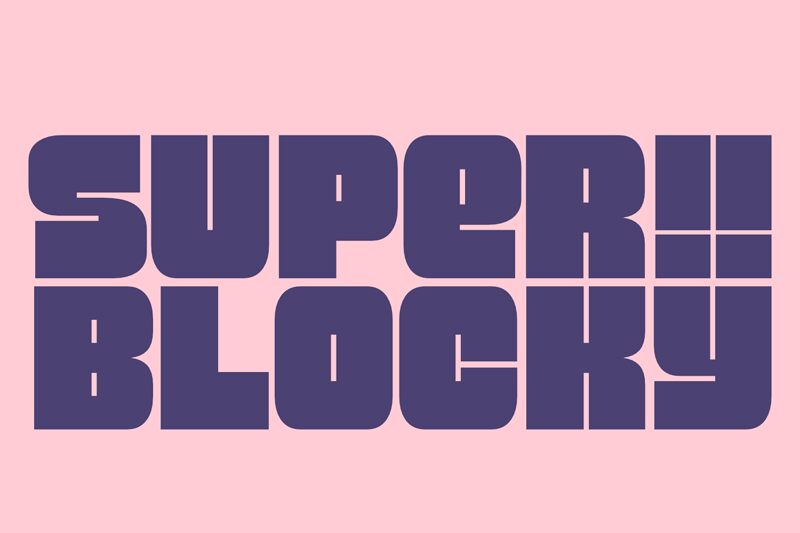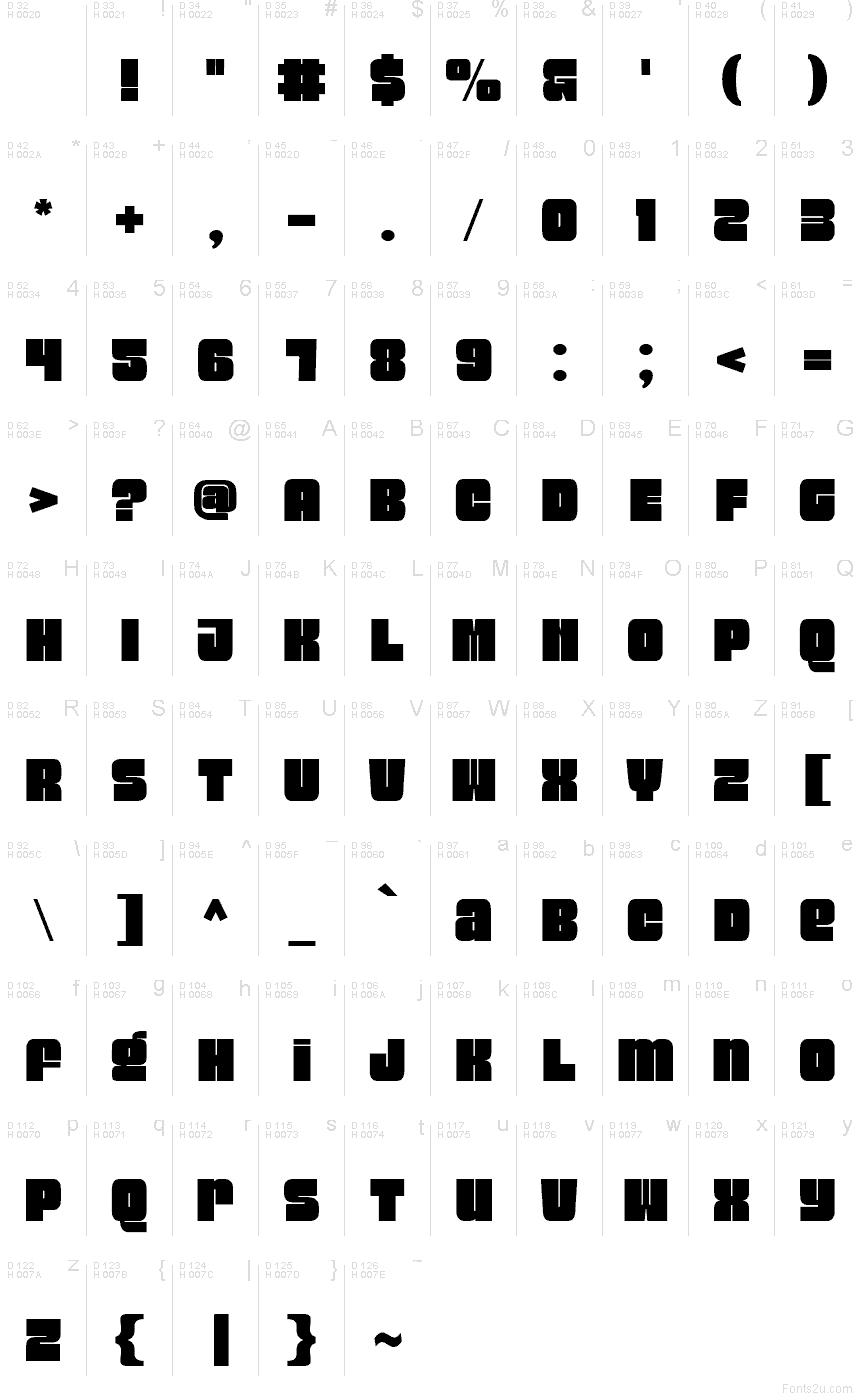
Super Blocky Regular
Super Blocky font is a free chunky geometric sans font, and this typeface lives up to its name with bold, squared forms that feel carved from solid rubber. The letters stack tightly with crisp inner cuts and rounded corners, giving your words a punchy, arcade-sign energy that stays readable even when it’s shouting.
Using Super Blocky works beautifully for game titles, esports branding, toy packaging, sticker designs, YouTube thumbnails, poster headlines, and punchy social ads. Try it oversized with generous tracking so the blocks can breathe, then pair it with a clean neutral sans (like Inter or Montserrat) for body text—this free font does the heavy lifting up top.